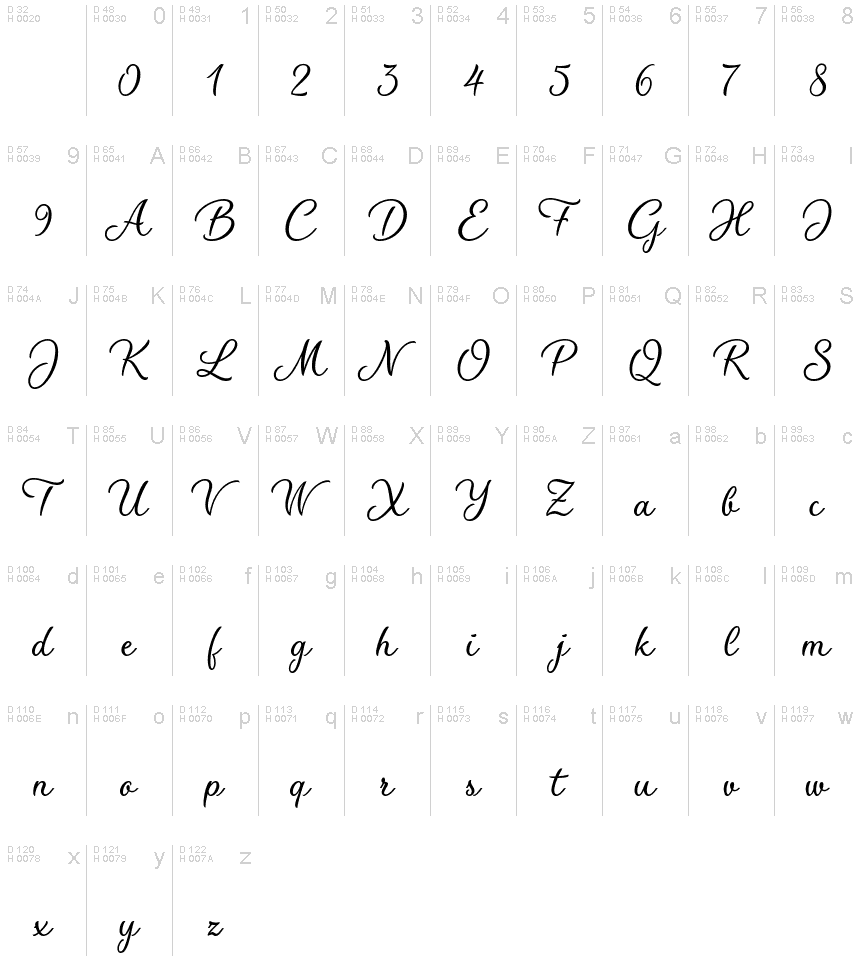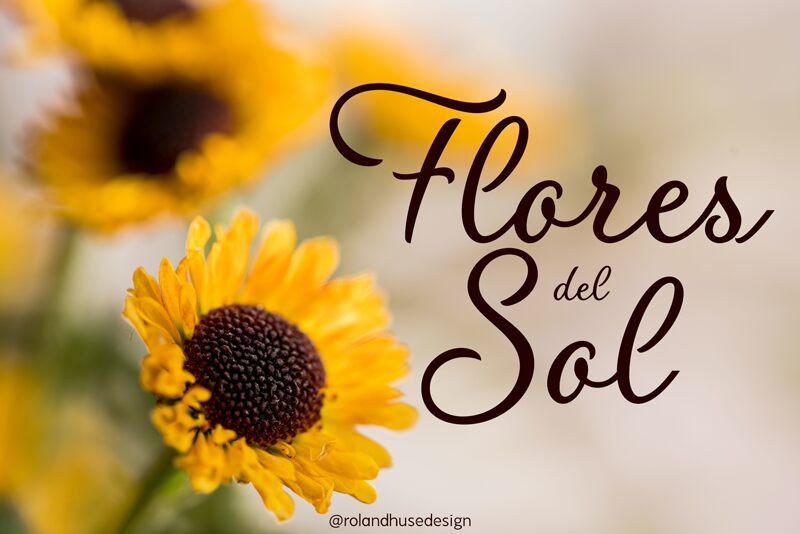
Flores del Sol Demo Regular
Flores del Sol font is a quality free calligraphy font designed by Roland Huse Design.
This is the demo version of FLORES DEL SOL. It is perfect for scrapbooking, name cards, postcards, wedding theme and social media posts as well as for logos (depending on the brand). The full commercial version contains all Western European, Eastern European accents and special characters along with OpenType features such as stylistic, swashed alternates and ligatures for a better flow and additional elegance. If any question, or request, please dont hesitate to contact me.